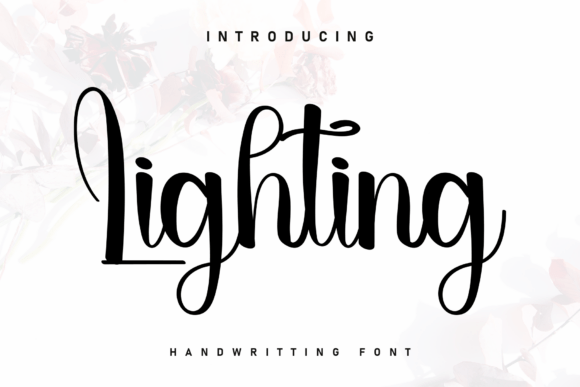
Lighting: A Handwritten Font That Dances with Charm
There’s a particular quality to certain handwritten fonts that stops you mid-scroll. They don’t just present words; they convey a feeling. Lighting is one of those typefaces. It’s not merely a script font; it’s a character in your design story. The first thing you notice is its rhythm. The letters don’t sit rigidly on the baseline—they dance along it, creating a subtle, organic flow that feels genuinely human. This isn’t the chaotic scrawl of a hurried note, but the considered, beautiful handwritten font of a friend’s warm invitation. Its personality is cozy, approachable, and effortlessly charming.
As a premium font, Lighting is crafted with attention to detail that sets it apart from free alternatives. The strokes have a natural, slightly textured quality, mimicking the pressure variation of a real pen or brush. This gives it an authenticity that’s hard to replicate. The characters connect in a fluid, cursive style, but with enough space to maintain individuality and, crucially, legibility. It’s a creative font that balances whimsy with function, making it a versatile design asset for a wide range of projects.
Where Lighting Truly Shines: Real-World Applications
Understanding a font’s personality is one thing; knowing where to deploy it is another. Lighting’s sweet, cozy aesthetic makes it a natural fit for projects aiming to build connection and convey warmth. Think beyond the obvious greeting card or wedding invitation (where it excels, of course).
For brand identity, this handwritten font can be a secret weapon for small businesses, especially those in lifestyle, wellness, artisanal food, or boutique retail. Imagine it on a bakery’s logo, a skincare brand’s packaging, or the header of a cozy café’s menu. It instantly communicates care, craftsmanship, and a personal touch. Paired with a clean sans serif font for body text, it creates a font pairing that is both inviting and professional.
In digital design, Lighting brings life to interfaces that can often feel sterile. Use it for hero text on a website landing page to draw visitors in, or for standout quotes in a blog post. It’s particularly effective for social media graphics—think Instagram story text, Pinterest pin titles, or Facebook ad headlines. Its dance-like quality catches the eye in a fast-moving feed, making it a powerful tool for marketers and content creators aiming to boost engagement.
For publishing and editorial design, consider it for chapter headings in a cookbook, a whimsical title for a children’s book, or accent text in a lifestyle magazine. It’s not suited for long-form body copy, but as a display font, it adds a layer of personality that a standard serif font or sans serif font cannot. Crafters and hobbyists will also find endless uses for it in DIY projects, from personalized stationery to custom T-shirt designs using a cutting machine.
Practical Guidance for Using Lighting Effectively
Adopting a new typeface like Lighting requires more than just liking its look. Here’s how to integrate it wisely into your workflow.
Evaluate the Project Fit: Always start with context. Is the project’s goal to feel official, serious, or corporate? If so, Lighting might clash. But if the brief calls for personality, approachability, or a handmade feel, it’s a strong candidate. Test it in a mockup early. Does it support the message or distract from it?
Master the Font Pairing: This is where Lighting truly proves its value. Because it’s a display font with high character, it needs a stable partner. A simple, geometric sans serif font like Montserrat or Open Sans provides a clean, readable foundation. For a more classic, elegant vibe, a transitional serif font like Georgia or Times New Roman can work. The rule of thumb: pair the expressive with the neutral. Let Lighting handle the headlines and pull quotes, and let its partner manage the dense paragraphs.
Consider Readability and Hierarchy: Use Lighting strategically to build a clear visual hierarchy. It’s perfect for H1, H2 headings, and key phrases you want to emphasize. Avoid using it for small text, long paragraphs, or critical data where clarity is paramount. Its strength is in accent and impact, not continuous reading. Always test its legibility at the intended size and on the target medium, whether it’s a smartphone screen or a printed brochure.
Review the Included Styles: A quality commercial font like Lighting often comes with more than one style. Check if it includes multiple weights (like Regular and Bold) or stylistic alternates. These extras can give you more flexibility, allowing you to create subtle variations within your design while maintaining a cohesive look. This is part of the value of investing in a premium font.
In the end, Lighting is more than just a pretty set of letters. It’s a tool for infusing your work with a specific, heartfelt emotion. Used thoughtfully, it can elevate a design from being merely functional to being truly memorable, helping your brand or project forge a stronger connection with its audience. It’s a testament to how the right modern typography choice can make all the difference.